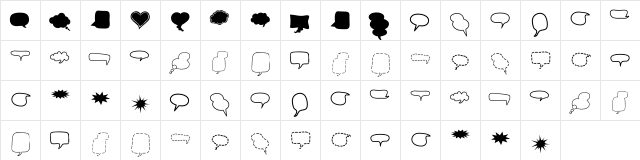
Alin Speech Bubbles 2 Regular
Design Context for Alin Speech Bubbles 2 Typeface
Alin Speech Bubbles 2 has an approachable, lighthearted character — its loose, expressive forms are well-suited to children's content, casual branding, and fun-first design.